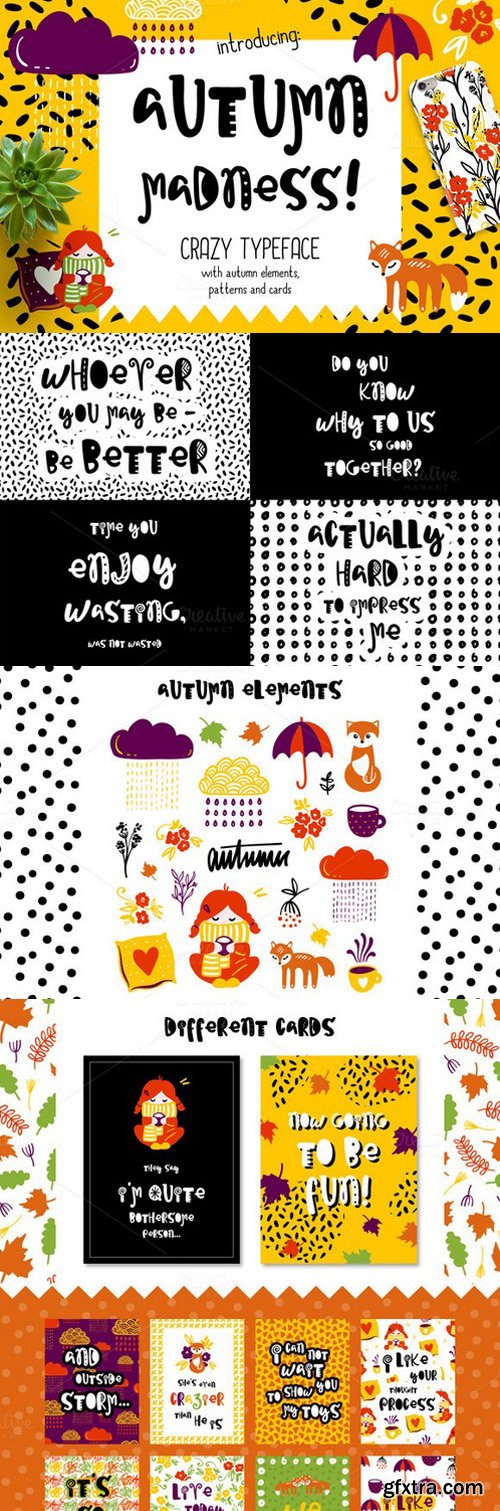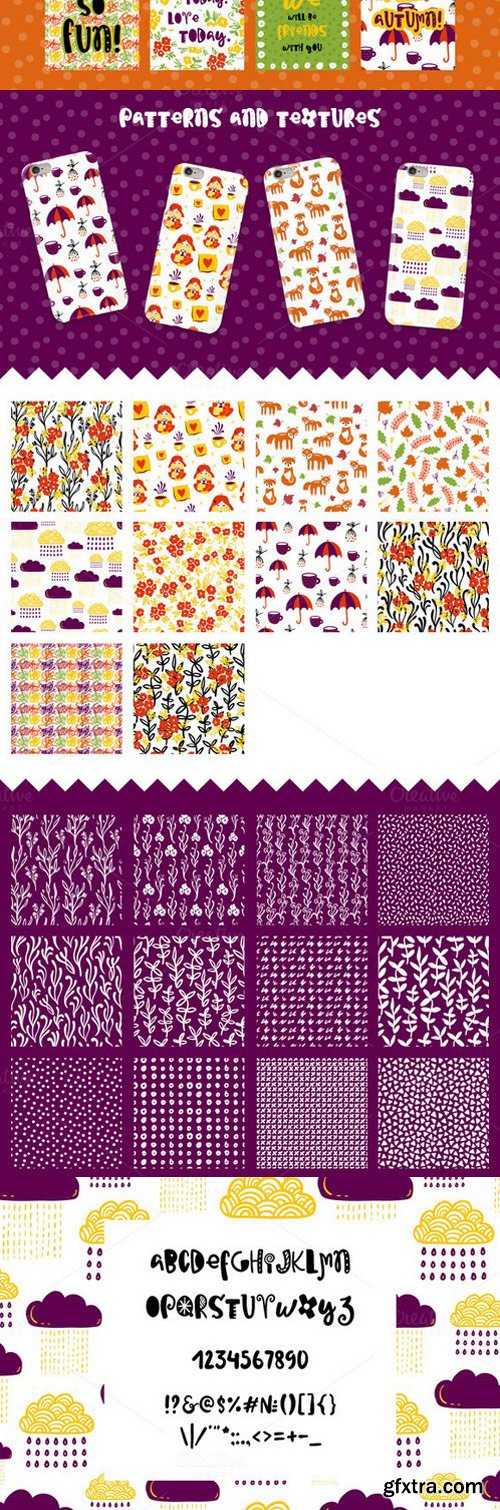
CM - Autumn Madness Typefase & Elements 865702
Autumn Madness Typeface with elements! This funny font is perfect for cards, prints, logos, arrange illustration and decoration. It has letters, numbers, special characters and accents. Colorful Autumn elements: hand drawn elements collection, seamless patterns and textures, cards. Autumn vector elements for your design.